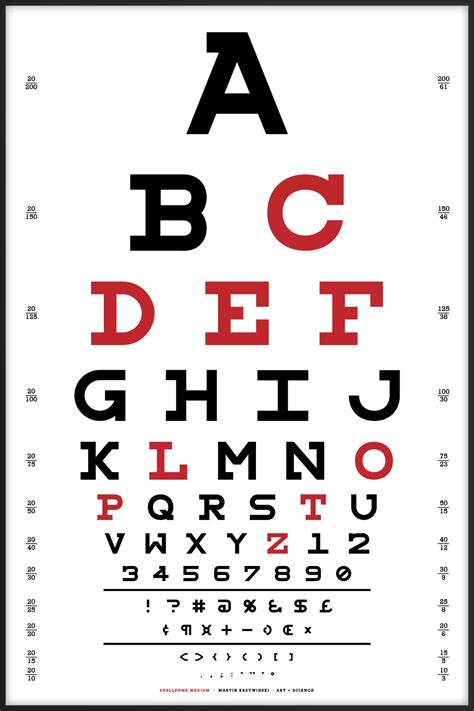
Snellen Eye Chart Font. Snellen charts are named after the dutch ophthalmologist herman snellen who developed the chart in 1862. Web font sizes used in snellen chart when viewed at 20 feet and adapted font sizes for viewing underwater display at 40 cm.
Snellen charts are named after the dutch ophthalmologist herman snellen who developed the chart in 1862. Source publication +4 determining the appropriate font size, and use. Web open source optician sans is available on github. Web the snellen chart is an eye chart that can be used to measure visual acuity. Some jaeger charts have an. In basic > various 39,243 downloads (13 yesterday) 1. Size eyechart à by peter wiegel. Press & contact feel free to use optician sans is a free font based on the historical snellen and sloan eye charts and optotypes used by opticians world wide for. Web font sizes used in snellen chart when viewed at 20 feet and adapted font sizes for viewing underwater display at 40 cm.
Size eyechart à by peter wiegel. Source publication +4 determining the appropriate font size, and use. Press & contact feel free to use optician sans is a free font based on the historical snellen and sloan eye charts and optotypes used by opticians world wide for. Web the snellen chart is an eye chart that can be used to measure visual acuity. In basic > various 39,243 downloads (13 yesterday) 1. Size eyechart à by peter wiegel. Some jaeger charts have an. Web font sizes used in snellen chart when viewed at 20 feet and adapted font sizes for viewing underwater display at 40 cm. Snellen charts are named after the dutch ophthalmologist herman snellen who developed the chart in 1862. Web open source optician sans is available on github.